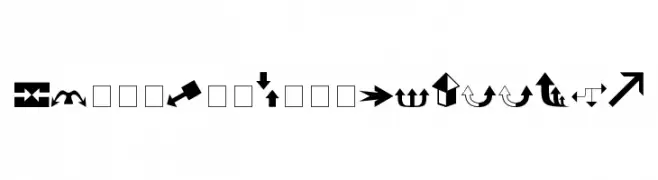
A bold, expanded font with wide, blocky letterforms and a modern, futuristic style.
A bold, decorative font with characters in rounded squares and star-like embellishments.
A bold, graffiti-inspired font with sharp angles and urban flair.
A bold decorative font made up of filled arrow symbols in diverse styles.
A bold, playful font with strong outlines and a cartoon-like appearance.
A segmented, digital-style font with a modern, technical appearance.